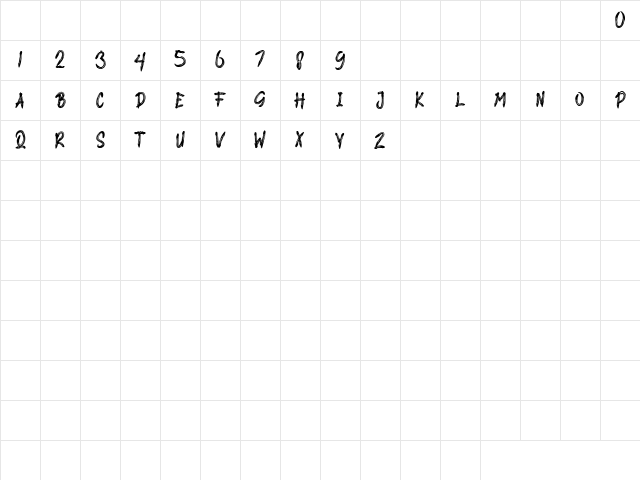
WUHAN BRUSH Regular Free Font
WUHAN BRUSH Regular
Designer: AMINMARIO 2020
Design Context for WUHAN BRUSH
WUHAN BRUSH flows with the natural rhythm of handwritten lettering, making it ideal for designs that call for warmth and personal expression.
Font Pairing: Combine WUHAN BRUSH with a simple geometric sans for maximum contrast - the tension between flowing curves and clean structure is a classic typographic pairing.
Pro Tip: Use WUHAN BRUSH for short runs of text - names, titles, or taglines. Extended body copy in script faces tires the eye quickly.